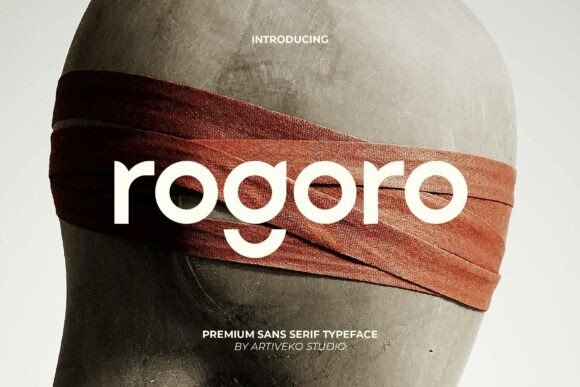
Rogoro Font: The Ultimate Sans-Serif Font for Modern Branding
Rogoro Font is a sleek and versatile sans-serif font designed with modern branding in mind. Featuring sharp geometry, clean proportions, and a minimal yet distinctive style, Rogoro is perfect for creating bold logos, professional brand identities, product packaging, website headers, and social media graphics.
Key Features of Rogoro Font
- Sharp Geometry: Rogoro’s geometric design ensures that every line, curve, and edge is precisely crafted to create a clean and modern aesthetic.
- Clean Proportions: The font’s balanced proportions make it highly legible, even at smaller sizes, ensuring that your message is conveyed clearly and effectively.
- Minimal yet Distinctive Style: Rogoro’s subtle design elements give it a unique edge, making it stand out in any application while maintaining a professional look.
- Versatile: Whether you’re designing a logo, website header, or social media graphic, Rogoro’s adaptability ensures it fits seamlessly into any design context.
Ideal Use Cases for Rogoro Font
Rogoro’s design makes it suitable for a wide range of applications, including:
- Logo Design: Create bold and memorable logos that make a lasting impression.
- Brand Identity: Establish a professional and modern brand image with Rogoro’s clean and elegant design.
- Product Packaging: Enhance your product’s visual appeal with a font that communicates quality and sophistication.
- Website Headers: Use Rogoro to create striking headers that capture attention and set the tone for your website.
- Social Media Graphics: Stand out on social media platforms with eye-catching graphics that leverage Rogoro’s distinctive style.
Typography Tips for Using Rogoro Font
To get the most out of Rogoro, consider the following typography tips:
- Pair with Complementary Fonts: Combine Rogoro with serif fonts for a balanced look or with other sans-serifs for a cohesive design.
- Adjust Line Spacing: Ensure adequate line spacing to improve readability, especially in body text.
- Utilize Font Weights: Use different weights of Rogoro to create visual hierarchy and emphasize key information.
- Experiment with Colors: Rogoro works well in various colors; experiment to find the perfect hue that aligns with your brand.
Design Inspiration with Rogoro Font
Rogoro’s sleek design opens up endless possibilities for creative expression. Here are some design inspiration ideas:
- Corporate Websites: Use Rogoro to create a professional and clean look for corporate websites.
- Fashion Branding: Rogoro’s modern style is perfect for fashion brands looking to convey elegance and sophistication.
- Product Launches: Make a bold statement with Rogoro in product launch materials, ensuring a memorable impact.
- Digital Marketing: Enhance your digital marketing materials with Rogoro’s distinctive and professional appearance.
Rogoro Font is a versatile and stylish sans-serif font that meets the demands of modern branding. Its sharp geometry, clean proportions, and distinctive minimalism make it an excellent choice for a wide range of applications. By incorporating Rogoro into your design projects, you can create visually appealing and professional work that resonates with your audience.